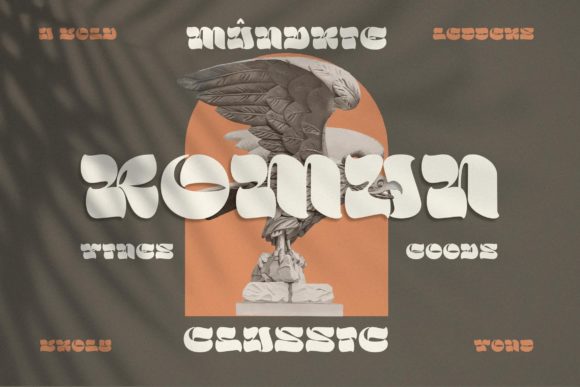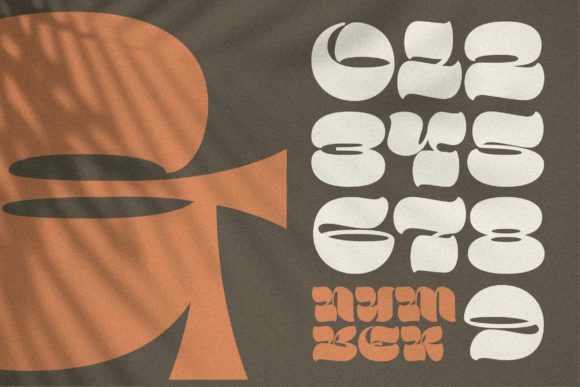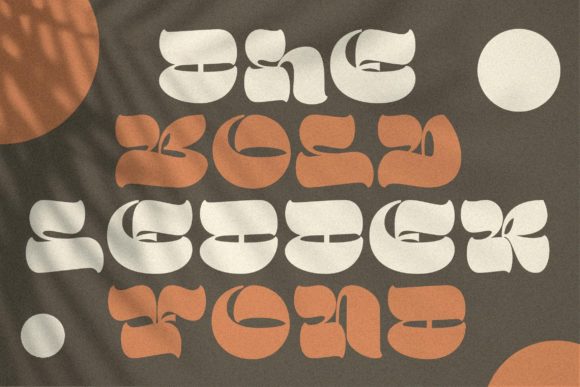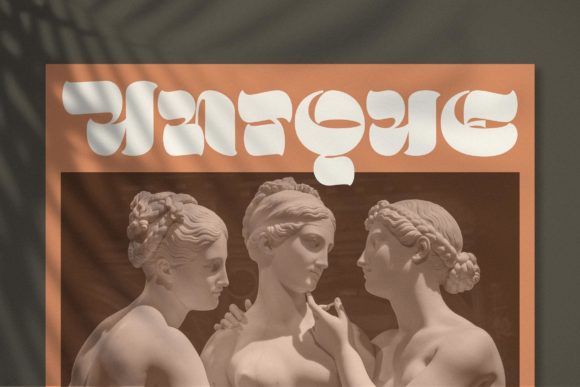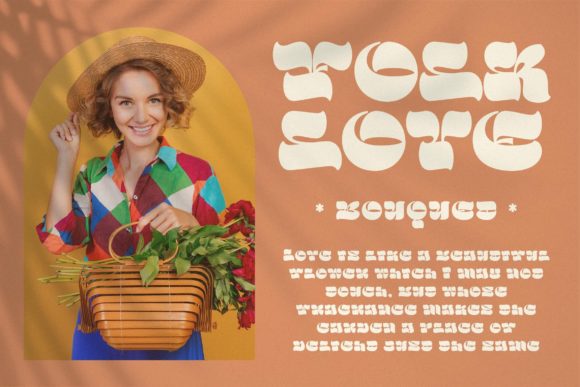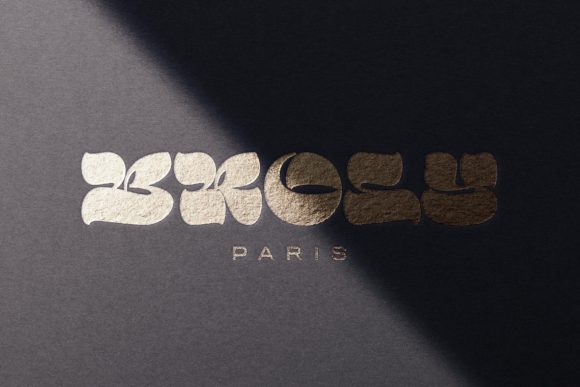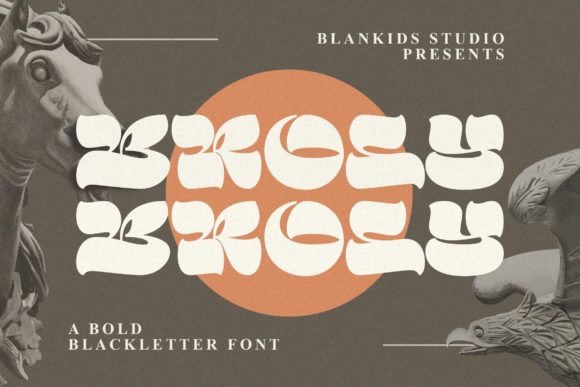
The Quest for the Perfect Blackletter Font: Discovering Broly
I still remember the frustration of scrolling through font after font, searching for the perfect Blackletter typeface for a client’s project. The brief was simple: create a bold, eye-catching design that screamed playfulness and creativity. Sounds easy, right? But when you’re faced with a sea of similar fonts, it can be daunting to find the one that stands out. That’s when I stumbled upon Broly, a bold Blackletter font that has since become a staple in my design toolkit.
A First Impression: What I Love About Broly
So, what makes Broly so special? Here are a few things that immediately caught my attention:
- ✨ Unique and stylish design: Broly’s bold Blackletter-style typography is unlike anything I’ve seen before. It’s perfect for designs that need a touch of playfulness and creativity.
- ✅ Highly versatile: Whether you’re working on a book cover, children’s book, comic, poster, packaging, merchandise, or logotype, Broly is up to the task.
- 💡 Inspired by classic typography: Broly’s design is rooted in traditional Blackletter typography, giving it a timeless feel that’s hard to resist.
Honest Review: The Not-So-Perfect Font
No font is perfect, and Broly is no exception. Here are a few quirks to keep in mind:
- 🤔 Limited use in formal designs: Broly’s bold, playful style may not be the best fit for formal or professional designs, such as business reports or academic papers.
- ⚠️ Legibility at small sizes: As with many Blackletter fonts, Broly may become difficult to read at very small sizes. It’s best used at larger sizes where its unique character can shine.
The Story Behind Broly
Broly was inspired by the classic Blackletter typography of the Middle Ages. Its designer sought to create a font that was both bold and elegant, with a unique character that would stand out in any design. The result is a font that’s perfect for designers who want to add a touch of playfulness and creativity to their work.
Here are a few questions I’ve encountered about Broly:
- Q: Is Broly suitable for body text?
- A: While Broly is a beautiful font, it’s best used as a display font or for headings. Its bold style and intricate details can make it difficult to read in large blocks of text.
- Q: Does Broly come with any OpenType features?
- A: Yes, Broly includes a range of OpenType features, including glyphs, stylistic alternates, and ligatures. These features allow you to customize the font to suit your design needs.
- Q: Is Broly a script font?
- A: No, Broly is a Blackletter font, not a script font. While it has some flowing elements, it’s primarily a bold, Gothic-inspired typeface.